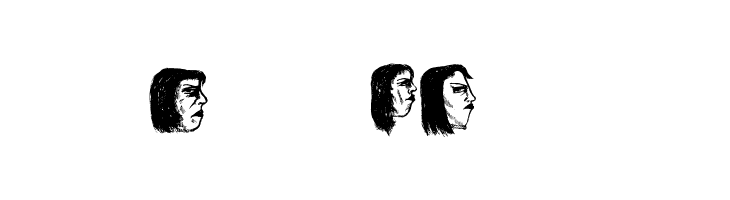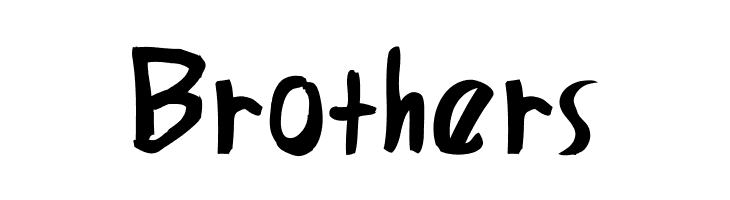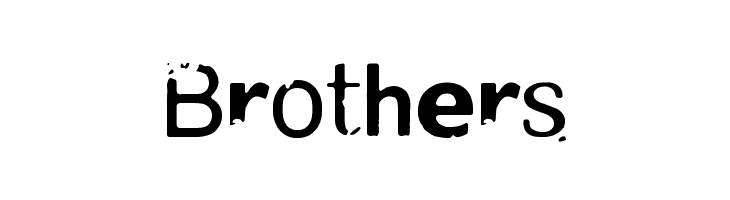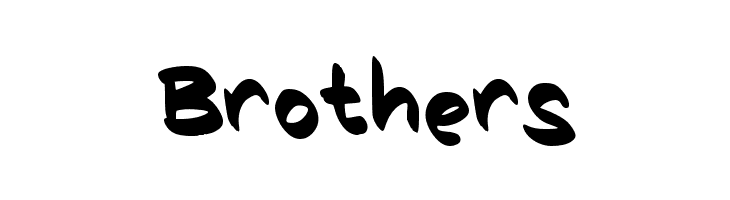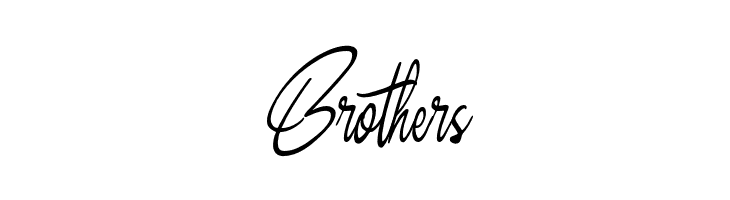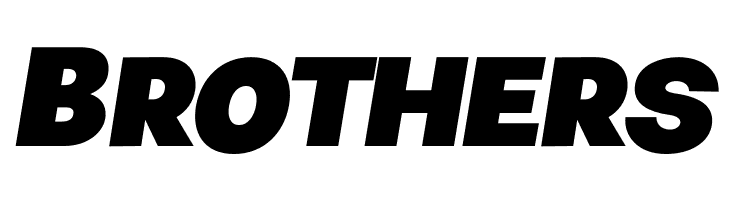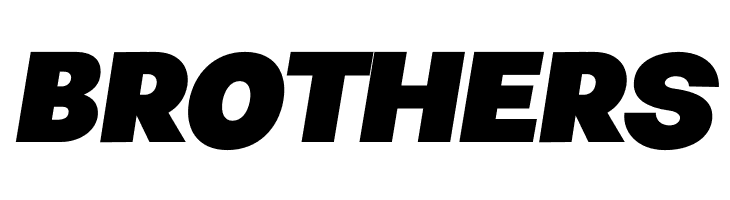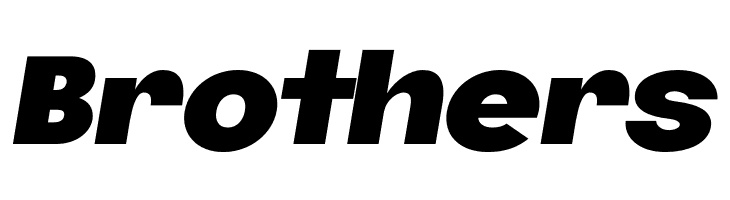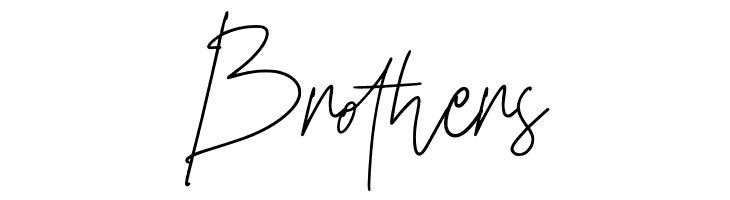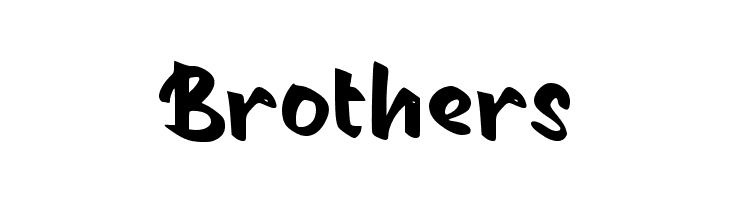
• Dalovet
A lively and dynamic handwritten font with smooth, cursive letterforms.
• Daltana Demo
A dynamic and fluid handwritten font with a lively, casual style.
• DalvatisDEMO-Regular
An elegant, flowing script font with ornate uppercase and cohesive lowercase letters.
• DAM
• Dama Book Regular
A bold, decorative font with a three-dimensional layered outline effect.
• Dama Bubey Normal
A bold, distressed decorative font with a vintage, grunge aesthetic.
• Dama Regular
A bold, three-dimensional decorative font with layered outlines.
• Damage Inc
A bold, distressed font with a rugged, industrial look.
• Damage Red
A distressed, grunge-style font with a bold, rugged appearance.
• Damaged
Expressive, hand-drawn faces form each character in this playful display font.
• Damagedpixfont
A bold, fragmented font with a glitch-inspired design.
• DAMAGEPLAN PERSONAL USE Bold
A bold, distressed font with a rugged, vintage texture.
• Damar Kurung
A bold, geometric font with sharp angles and a modern, industrial feel.
• Damask Dings1
A collection of intricate damask-inspired ornamental designs for elegant decoration.
• Damba
A bold, playful handwritten font with dynamic curves and a casual feel.
• DameanDemo
A modern, handwritten-style font with tall, narrow letterforms and subtle irregularities.
• Damel
A bold, playful handwritten font with thick, rounded strokes.
• Damen
A bold, hand-painted style font with a playful and energetic appearance.
• Damen 2 Regular
Font made of expressive, hand-drawn profile faces.
• Dames Sensibles Regular
A bold, geometric font with art deco influences and decorative outlines.
• Damia Regular